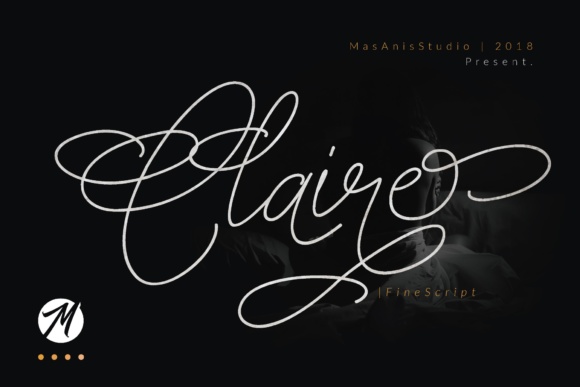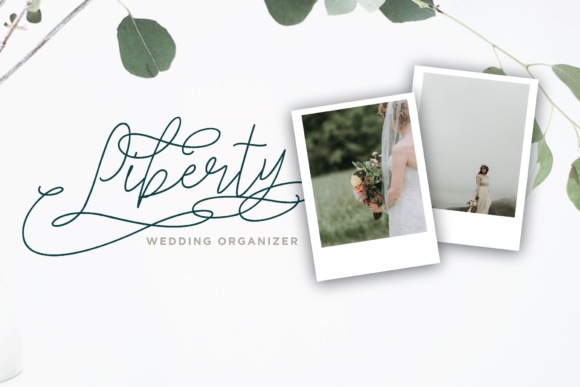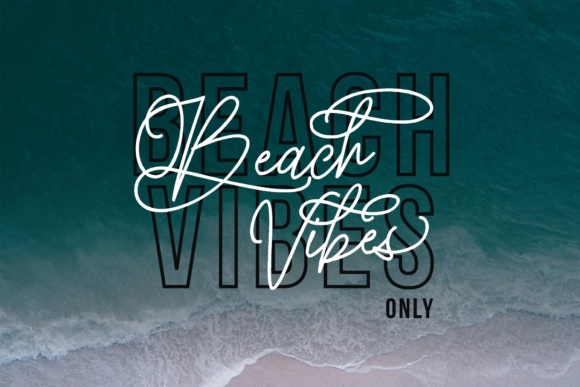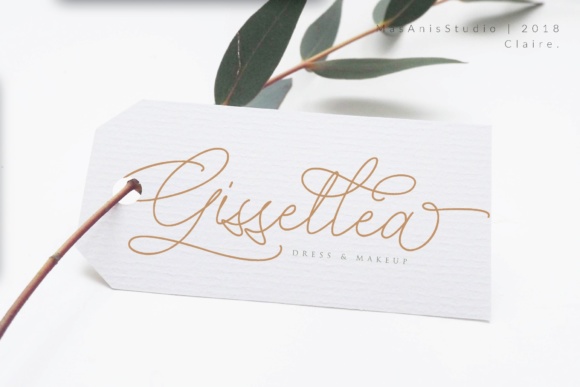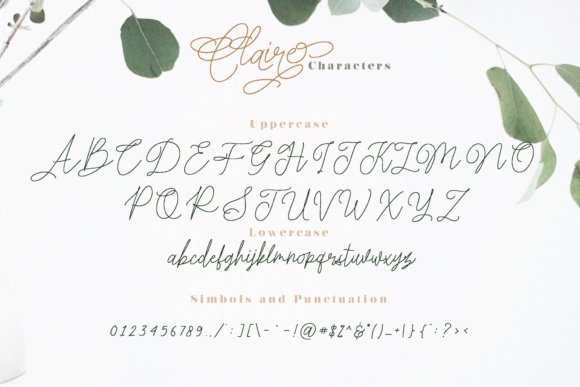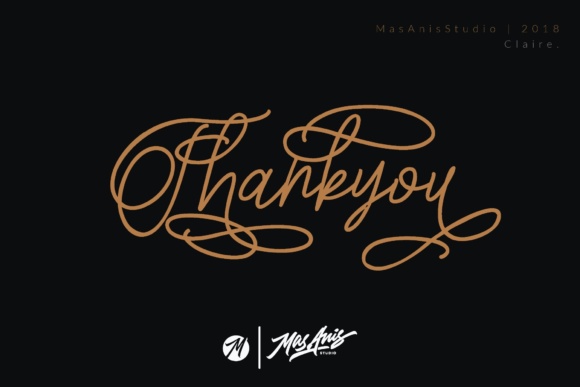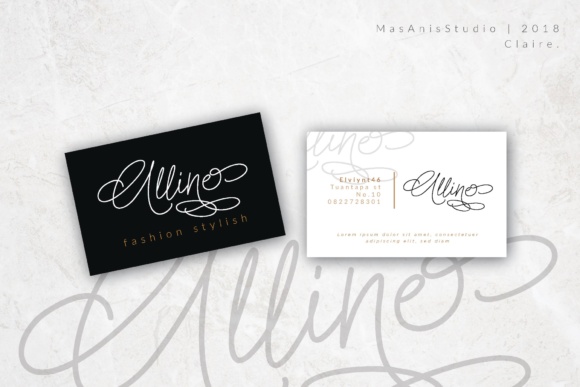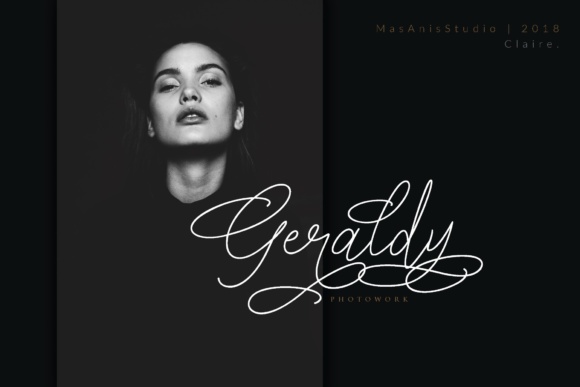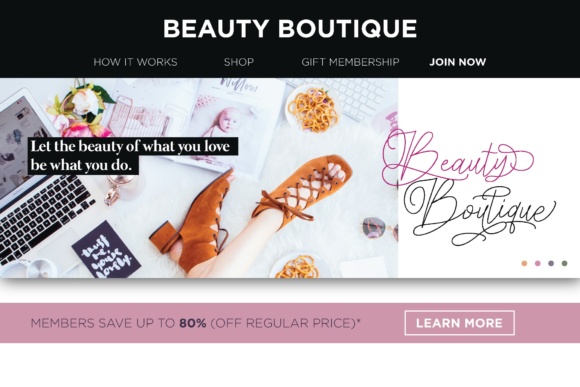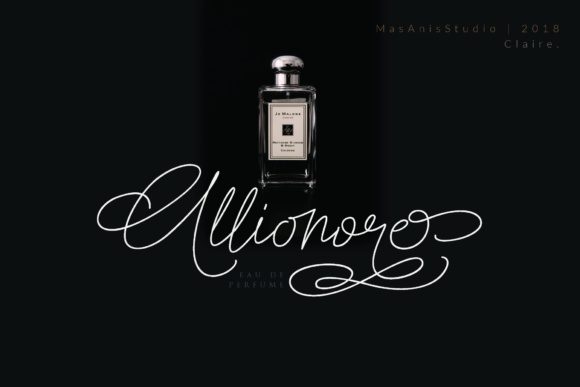
Claire Script Font
About Claire Script Font
Claire Script is the perfect font for those who are in need of a touch of elegance.
If you look the combination of a elegant and modern look, this is the perfect font for you.